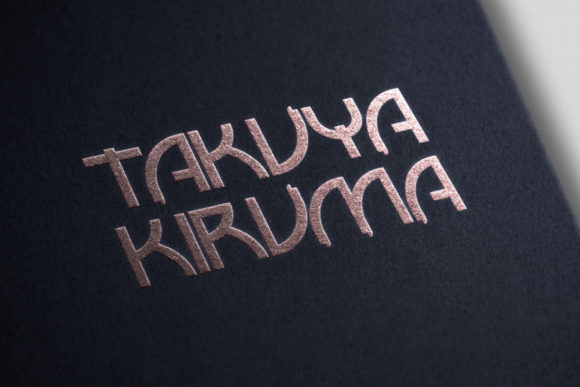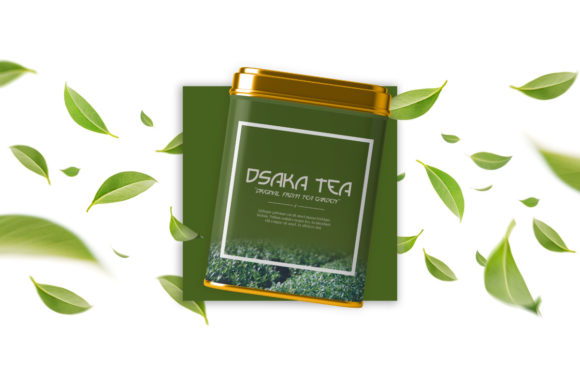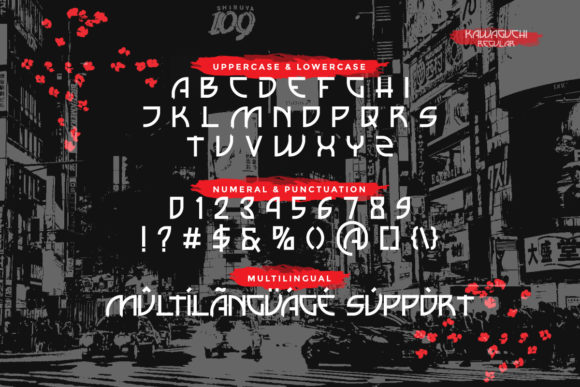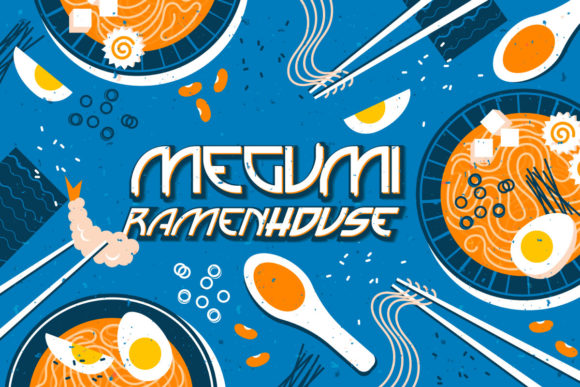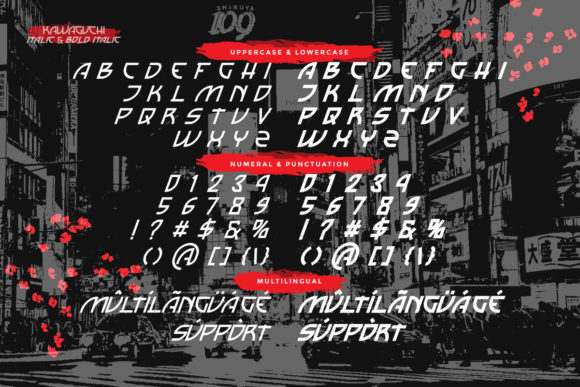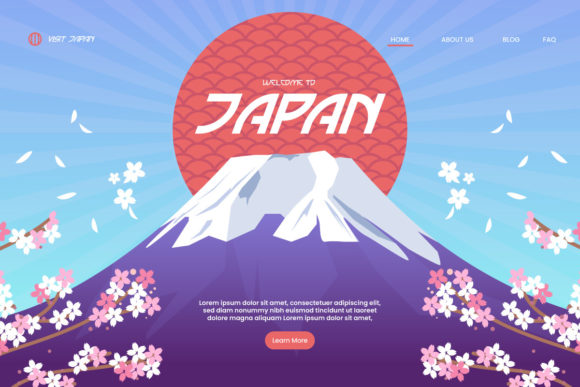
Kawaguchi Font – Free Download
Introduction to Kawaguchi Font
Kawaguchi is an incredibly unique, Japanese inspired display font.
It will look stunning on any food menu, poster, flyer or print Use this font for your designs and explore its endless possibilities.
Key Features of Kawaguchi Font